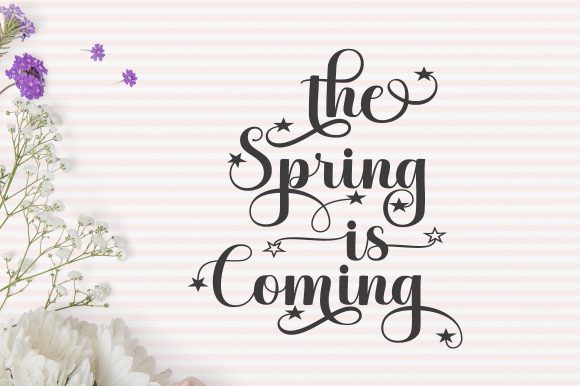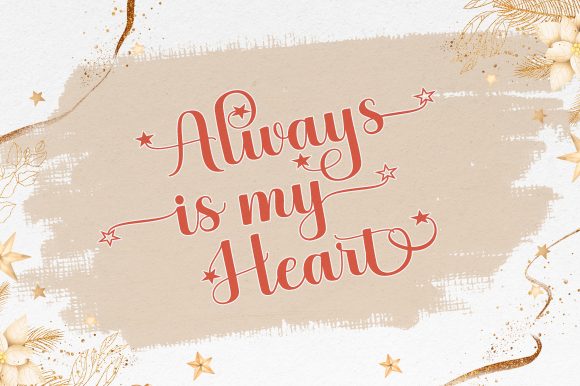
Galitha Font
db-ku.com - Script & Handwritten -- Galitha is an adorable quirky handwritten font. It will add an incredibly joyful touch to your designs.